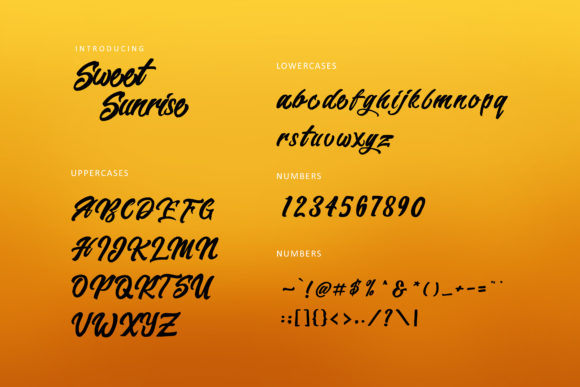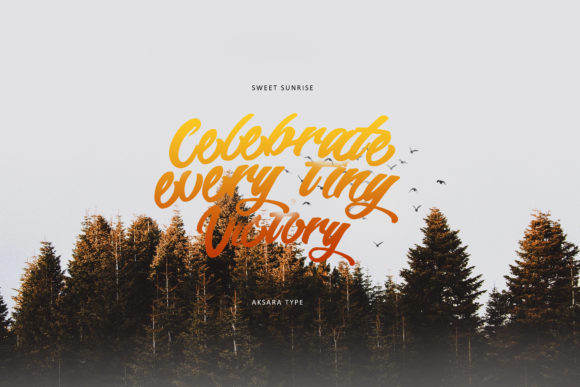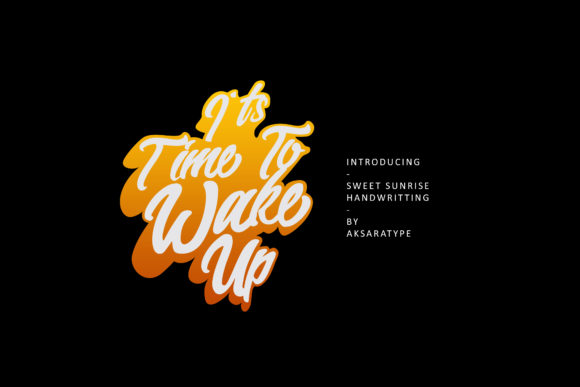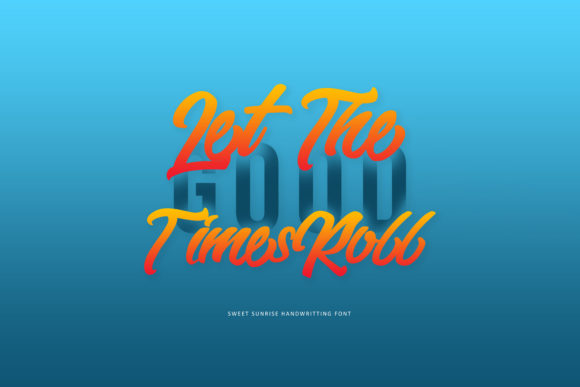
Sweet Sunrise Font
About Sweet Sunrise Font
Sweet Sunrise is an awesome script handwritten font with a bold and cool look. It will effortlessly elevate any design project!